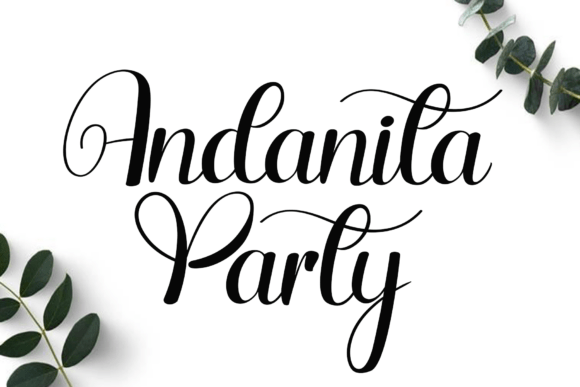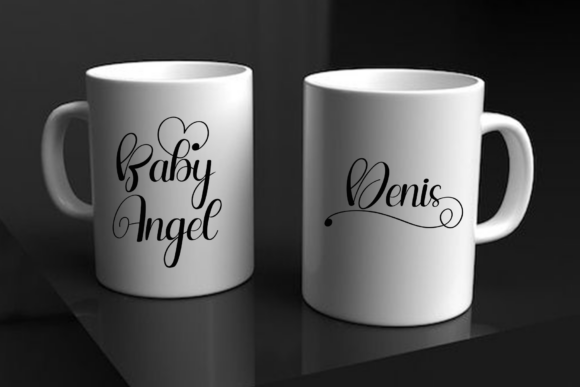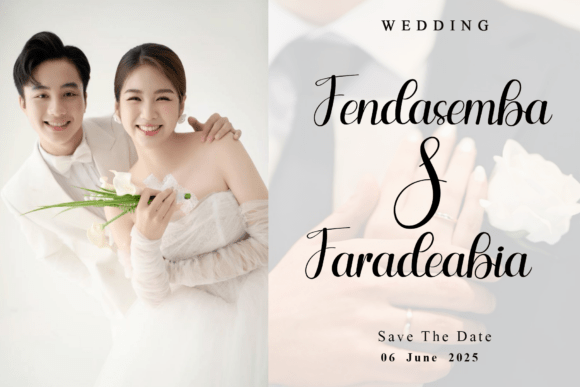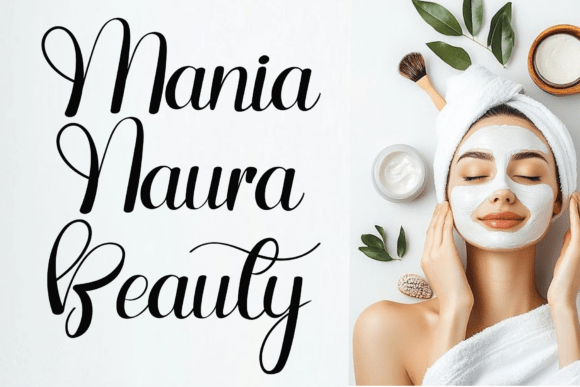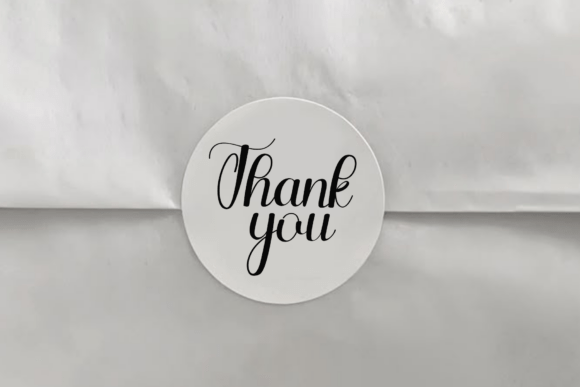
Baby Beauties Font: The Sweet and Friendly Handwritten Font for Your Design Needs
Are you a designer or crafter looking for a font that can add a lovely touch to your designs? Look no further than Baby Beauties Font! This sweet and friendly handwritten font is perfect for creating wedding invitations, cards, and other designs that require a personal and relaxed feel. In this article, we’ll take a closer look at Baby Beauties Font and explore its features, benefits, and uses.
What is Baby Beauties Font?
Baby Beauties Font is a handwritten font designed to bring a touch of warmth and personality to your designs. Its sweet and friendly style makes it ideal for creating designs that require a personal and relaxed feel. The font is fun and relaxed, with a playful vibe that’s perfect for a variety of design projects.
Features of Baby Beauties Font
Baby Beauties Font has several features that make it a great choice for designers and crafters. Some of its key features include:
- Sweet and friendly style: Baby Beauties Font has a warm and inviting style that’s perfect for creating designs that require a personal touch.
- Handwritten feel: The font has a handwritten feel that’s fun and relaxed, making it ideal for creating designs that require a playful vibe.
- Versatile: Baby Beauties Font is versatile and can be used for a variety of design projects, including wedding invitations, cards, and other designs.
- Easily readable: The font is easily readable, making it perfect for designs that require a clear and concise message.
Benefits of Using Baby Beauties Font
There are several benefits to using Baby Beauties Font in your designs. Some of the benefits include:
- Adds a personal touch: Baby Beauties Font adds a personal touch to your designs, making them more relatable and engaging.
- Creates a playful vibe: The font creates a playful vibe that’s perfect for designs that require a fun and relaxed feel.
- Perfect for wedding invitations and cards: Baby Beauties Font is ideal for creating wedding invitations and cards that require a sweet and friendly style.
- Easy to use: The font is easy to use and can be easily integrated into your designs.
Uses of Baby Beauties Font
Baby Beauties Font can be used for a variety of design projects, including:
- Wedding invitations: The font is perfect for creating wedding invitations that require a sweet and friendly style.
- Cards: Baby Beauties Font is ideal for creating cards that require a personal and relaxed feel.
- Stationery: The font can be used for creating stationery that requires a playful and fun vibe.
- Digital designs: Baby Beauties Font can be used for creating digital designs, such as social media graphics and blog posts.
Tips for Using Baby Beauties Font
Here are some tips for using Baby Beauties Font in your designs:
- Use it for headings and titles: The font is perfect for headings and titles, where you want to add a personal touch.
- Pair it with other fonts: Baby Beauties Font can be paired with other fonts to create a unique and interesting design.
- Experiment with colors: The font looks great in a variety of colors, so experiment with different colors to find the one that works best for your design.
- Use it for digital designs: Baby Beauties Font can be used for digital designs, such as social media graphics and blog posts.
In conclusion, Baby Beauties Font is a sweet and friendly handwritten font that’s perfect for designers and crafters looking to add a lovely touch to their designs. Its features, benefits, and uses make it a great choice for a variety of design projects, including wedding invitations, cards, and other designs. With its easily readable style and playful vibe, Baby Beauties Font is sure to become a favorite in your design arsenal.